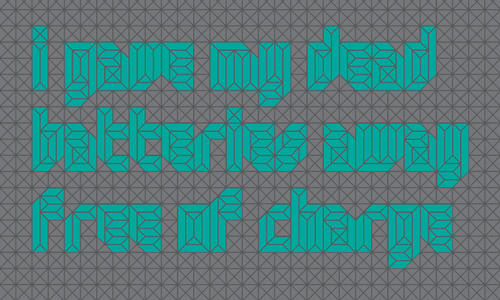
This is a new addition to the Gimli family. The basic concept is the same as of the other Gimli fonts. I experimented with an all lower case font so as to explore the white spaces between ascenders and descenders.
This looks crazy complicated. It must have taken days to to create. This is the work of a very patient person. It shows mastery of the Fontstruct program.
Extended Latin set added. Still need some work. I'd like to get some feedback on diacritical marks, and the ß (Eszett).
Cyrillic set (for Russian) have been created as well. However, the fontstruction, already big, became too large for FS to handle. It could not be rendered in the preview window. Therefore, it will be pulished separately.
@La police de caractère: Thank you for your kind comment. It took me longer than a few days, but I wasn't working always on this project. Crazy complicated? That was not my intention. Actually, I wanted to create a beveled font with minimal design. The only major challenge was to make sure the white gaps between the elements were always the same width, regardless of their angle. I had to scale up the letters in order to work with very small fractions. I think, I have succeeded to get a good approximation. The difference is imperceptible for the human eye even at large font sizes.
I meant to write "crazily complicated", not that the font is crazy. It makes me want to stop all my work and only Fontstruct to learn about the possibilities and make fonts.
@Umbreon126: Well, typing ss is more elegant, of course. I merely gave more options to the user by adding the ß glyph. It is not my fault this particular glyph, a vestige of medieval German script, is as large as a capital B. It's a ligature, actually, and only has lower case form. Still, I am very fond of eszett; I seldom miss an opportunity to design one for a new typeface.
@ TCWhite: Yes, I have tried the digraph for the ß glyph. It was OK, but not much smaller. I am content with the new design, too.
I know, there is a capital eszett glyph in More Latin at the end. What I meant, the capital version is not really in use. It is a recent addition to the German alphabet designed for text set in capitals, chiefly. In practice, they use SS instead. However, that solution has problems too: triple consonants. In words like Maßstab, Mißstand, Paßstraße, Schloßschule, etc. you end up with SSS.
Thank you for your thoughts; it made me do more research on the subject.
You're welcome. I often tell people to research if they consider adding glyphs they're unfamiliar with. Half of my time spent designing is actually doing research. The unicode images associated with a ton of the glyphs are actually wrong, as are a lot of the names.
This is a new addition to the Gimli family. The basic concept is the same as of the other Gimli fonts. I experimented with an all lower case font so as to explore the white spaces between ascenders and descenders.
This looks crazy complicated. It must have taken days to to create. This is the work of a very patient person. It shows mastery of the Fontstruct program.
Extended Latin set added. Still need some work. I'd like to get some feedback on diacritical marks, and the ß (Eszett).
Cyrillic set (for Russian) have been created as well. However, the fontstruction, already big, became too large for FS to handle. It could not be rendered in the preview window. Therefore, it will be pulished separately.
@La police de caractère: Thank you for your kind comment. It took me longer than a few days, but I wasn't working always on this project. Crazy complicated? That was not my intention. Actually, I wanted to create a beveled font with minimal design. The only major challenge was to make sure the white gaps between the elements were always the same width, regardless of their angle. I had to scale up the letters in order to work with very small fractions. I think, I have succeeded to get a good approximation. The difference is imperceptible for the human eye even at large font sizes.
I meant to write "crazily complicated", not that the font is crazy. It makes me want to stop all my work and only Fontstruct to learn about the possibilities and make fonts.
Hmm . . . The diacritics look fine. As for eszett . . . given the design of the font, I can't think of how else to construct it. It works, however.
@TCWhite: Thank you for your comment. Well, I've changed the ß. It's now by the books, but a monster.
Would designing it as a simple "ss" be acceptable?
@Umbreon126: Well, typing ss is more elegant, of course. I merely gave more options to the user by adding the ß glyph. It is not my fault this particular glyph, a vestige of medieval German script, is as large as a capital B. It's a ligature, actually, and only has lower case form. Still, I am very fond of eszett; I seldom miss an opportunity to design one for a new typeface.
I had a thought of doing the eszett as a digraph, rather, making the glyph a combination of the sharp s + s, i.e., not having them connected.
Okay . . . I like the new design. The capital is in Latin Extended-Additional—if you were unaware, that is? :)
Thank you for your thoughts; it made me do more research on the subject.
You're welcome. I often tell people to research if they consider adding glyphs they're unfamiliar with. Half of my time spent designing is actually doing research. The unicode images associated with a ton of the glyphs are actually wrong, as are a lot of the names.